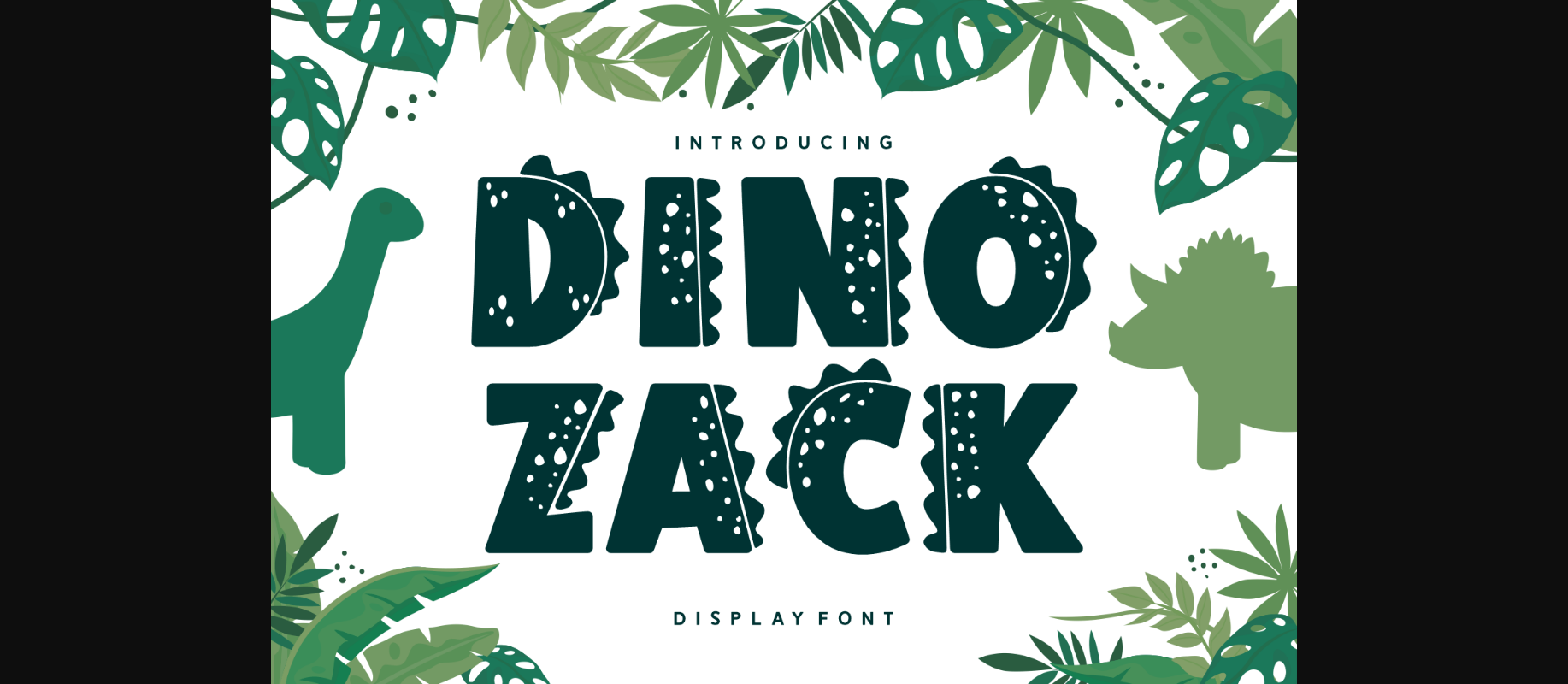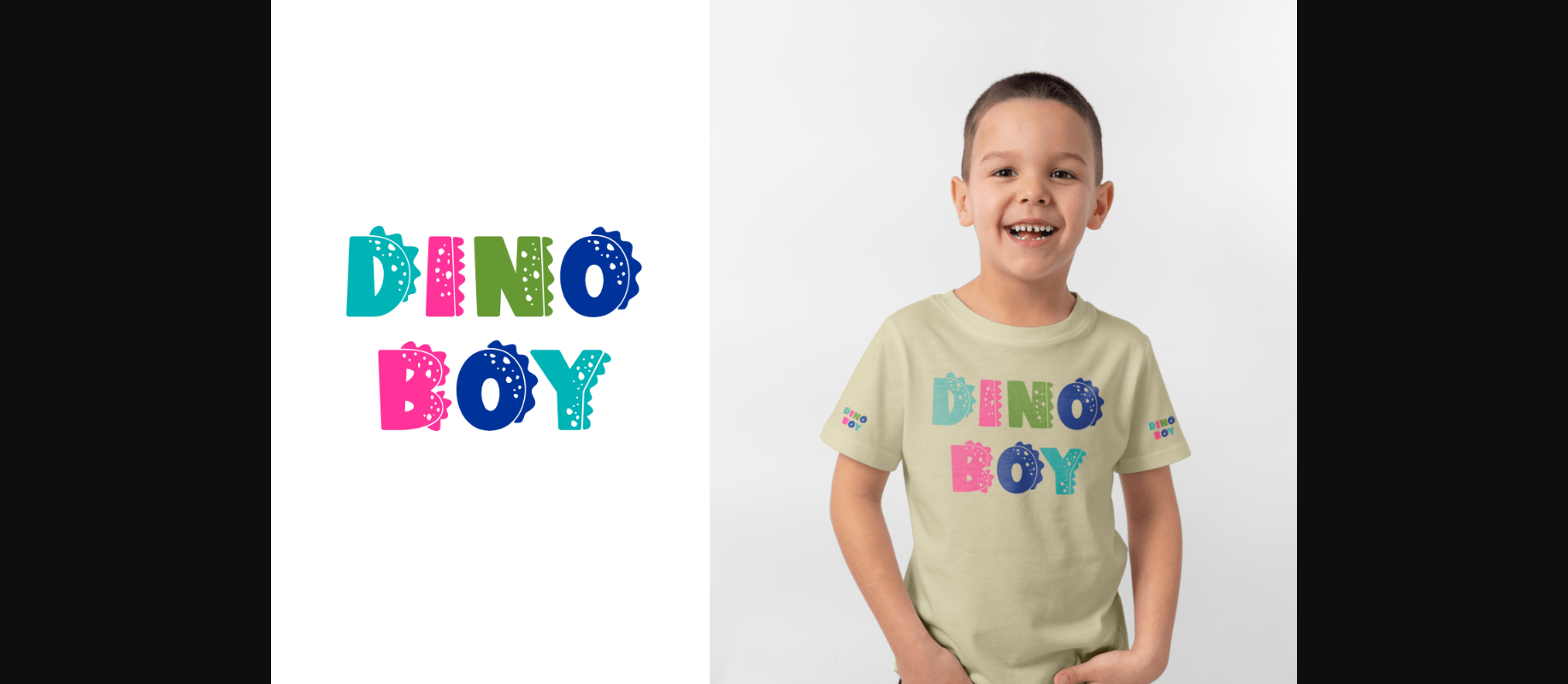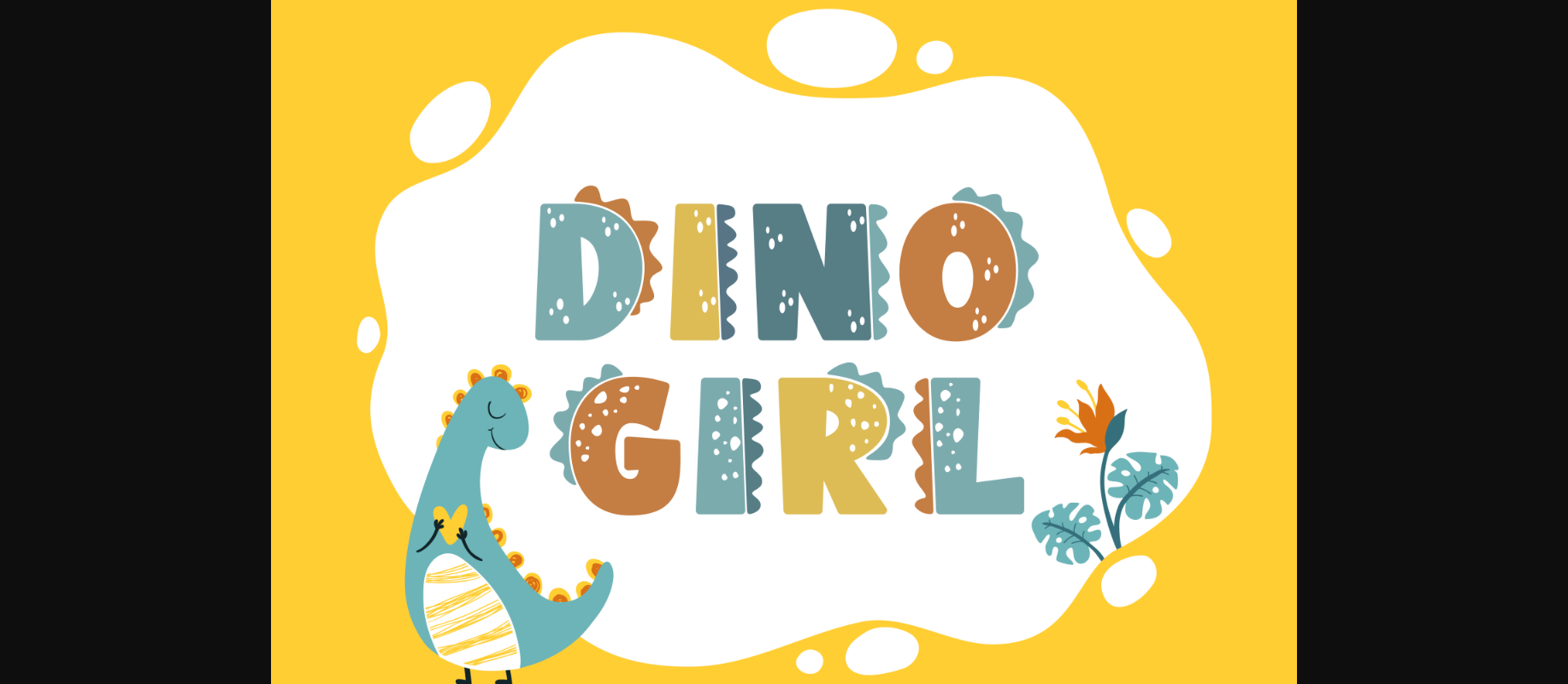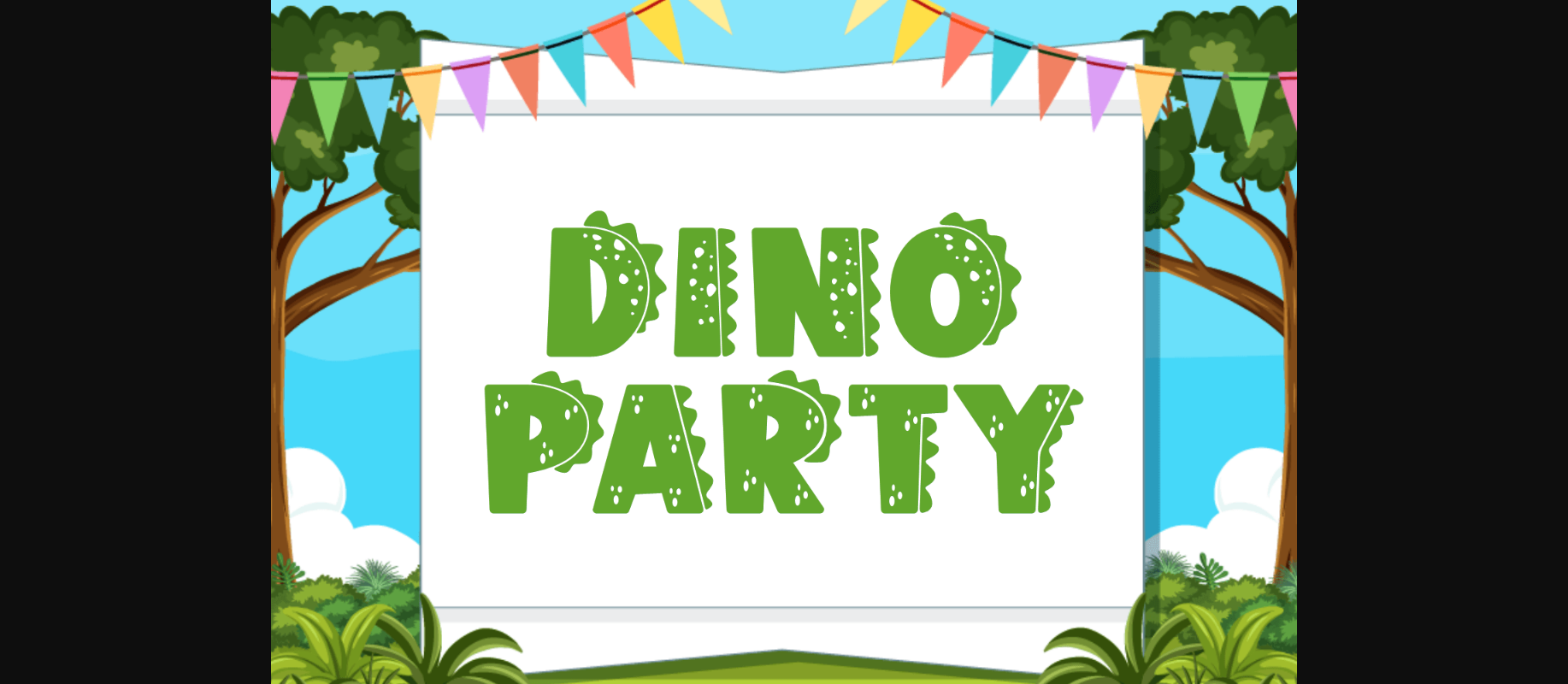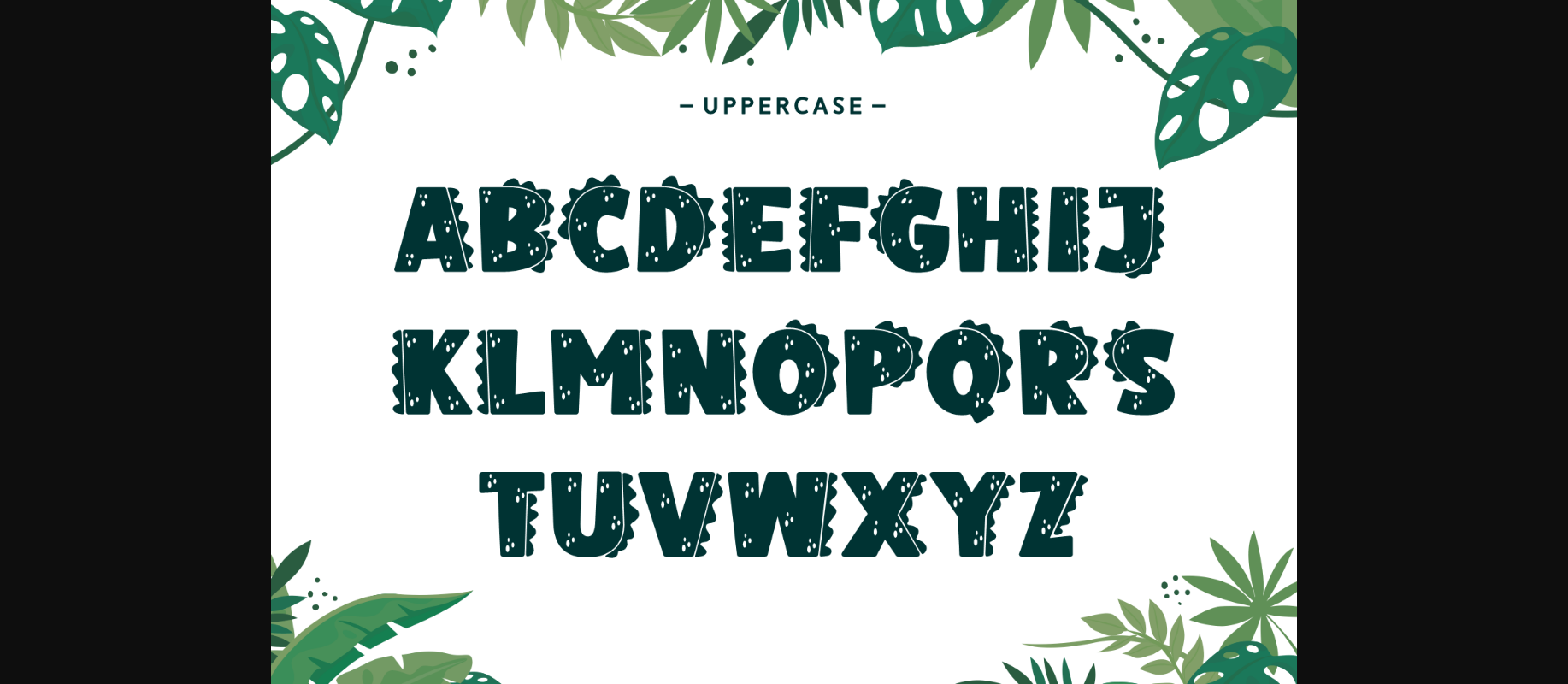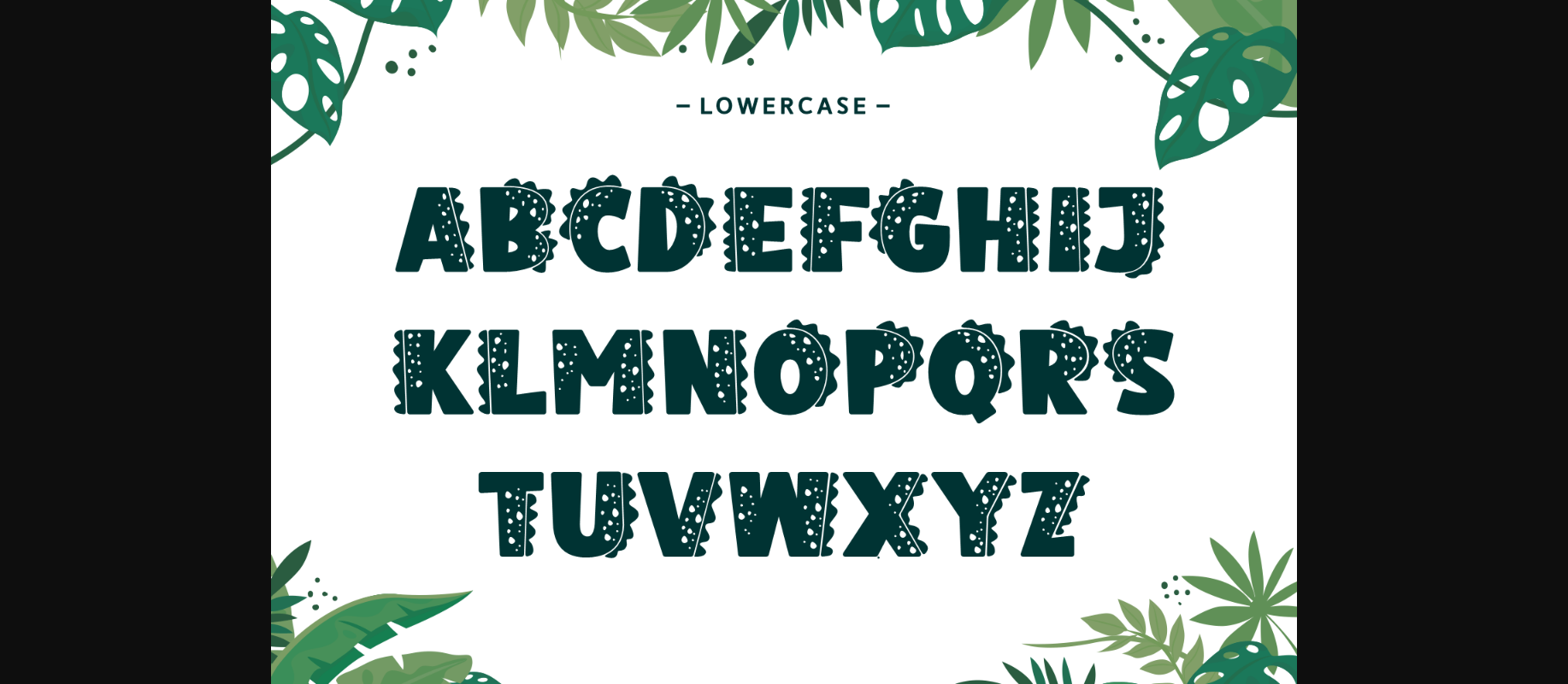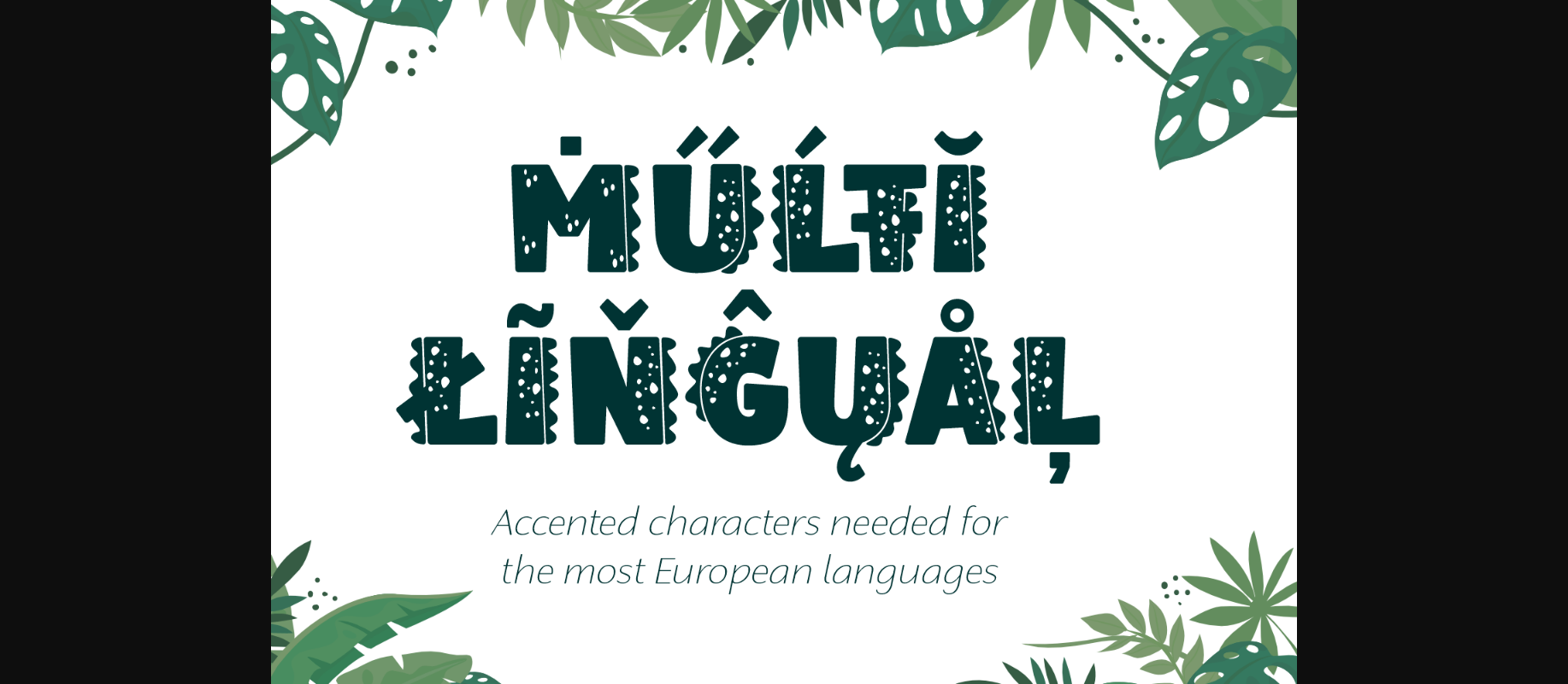
Dino Zack Font
About Dino Zack Font
Dino Zack is a fun and playful decorative font. Take your kid-friendly designs to the next level with this captivating font! Use it to create unique t-shirt designs, baby onesies, nursery decorations, digital designs, cards, and many more.